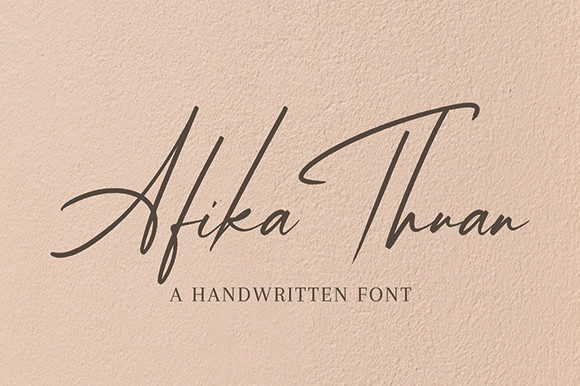
Introducing Afika Thuan Font: The Ultimate Calligraphy Typeface for Romantic Designs
Are you looking for a font that can add a touch of luxury, joy, and romance to your design projects? Look no further than Afika Thuan Font! This beautiful calligraphy typeface is designed to make your designs stand out with its unique and elegant style. In this article, we’ll explore the features and benefits of Afika Thuan Font and how it can elevate your designs to the next level.
What is Afika Thuan Font?
Afika Thuan Font is a romantic and sweet calligraphy typeface that features characters that dance along the baseline. This unique design element gives the font a playful and whimsical feel that’s perfect for designs that require a touch of elegance and sophistication. The font is designed to be versatile and can be used for a wide range of design projects, from wedding invitations and romantic quotes to branding and advertising materials.
Key Features of Afika Thuan Font
- Unique Calligraphy Style: Afika Thuan Font features a distinctive calligraphy style that’s both elegant and playful. The characters are designed to dance along the baseline, giving the font a sense of movement and energy.
- Luxury and Sophistication: The font is perfect for designs that require a touch of luxury and sophistication. It’s ideal for high-end branding, advertising, and marketing materials.
- Romantic and Whimsical: Afika Thuan Font is perfect for designs that require a romantic and whimsical touch. It’s ideal for wedding invitations, romantic quotes, and other designs that require a playful and elegant feel.
- Versatile: The font is designed to be versatile and can be used for a wide range of design projects, from print materials to digital designs.
Benefits of Using Afika Thuan Font
Using Afika Thuan Font in your designs can have numerous benefits. Here are a few:
- Adds a Touch of Elegance: The font’s unique calligraphy style and elegant design elements can add a touch of elegance and sophistication to your designs.
- Creates a Romantic Atmosphere: Afika Thuan Font is perfect for creating a romantic atmosphere in your designs. It’s ideal for wedding invitations, romantic quotes, and other designs that require a playful and elegant feel.
- Stand Out from the Crowd: The font’s unique design elements can help your designs stand out from the crowd. It’s perfect for designers who want to create unique and eye-catching designs.
Tips and Tricks for Using Afika Thuan Font
Here are some tips and tricks for using Afika Thuan Font:
- Use it for Headings: Afika Thuan Font is perfect for headings and titles. Use it to add a touch of elegance and sophistication to your designs.
- Pair it with Other Fonts: Afika Thuan Font can be paired with other fonts to create a unique and eye-catching design. Experiment with different font combinations to find the perfect one for your design.
- Adjust the Font Size: Adjust the font size to suit your design needs. Afika Thuan Font can be used for both large and small text.
- Use it for Digital Designs: Afika Thuan Font can be used for digital designs, such as website headers, social media graphics, and more.
Afika Thuan Font is a beautiful calligraphy typeface that’s perfect for designers who want to add a touch of elegance, sophistication, and romance to their designs. With its unique design elements and versatile style, it’s ideal for a wide range of design projects, from wedding invitations and romantic quotes to branding and advertising materials. Whether you’re a professional designer or a DIY enthusiast, Afika Thuan Font is a great addition to your font collection.
- What is Afika Thuan Font?: Afika Thuan Font is a romantic and sweet calligraphy typeface with characters that dance along the baseline.
- What is Afika Thuan Font used for?: Afika Thuan Font can be used for a wide range of design projects, from wedding invitations and romantic quotes to branding and advertising materials.